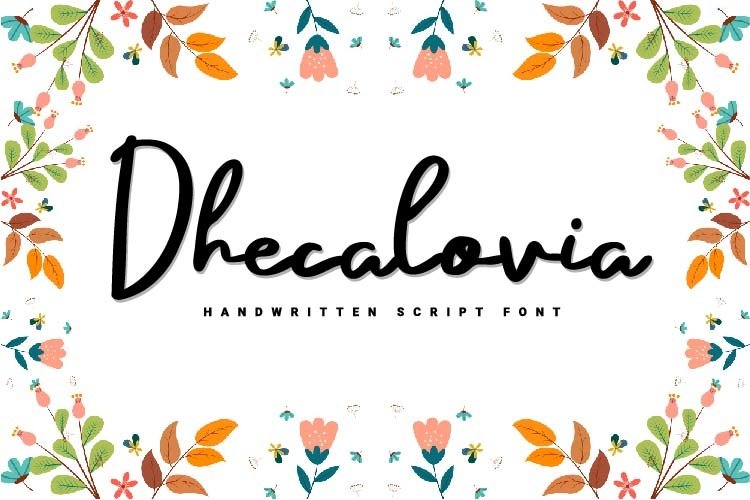
This font is cheerful and eye-catching. You can use it in both digital and print projects such as craft purposes, creative posts on social media, wedding invitations, photographer's watermarks, branding, accessories, food packaging and much more to explore. For reference, see preview.
-Uppercase
-Lowercase
-Numeral
-Punctuation
-Multilingual